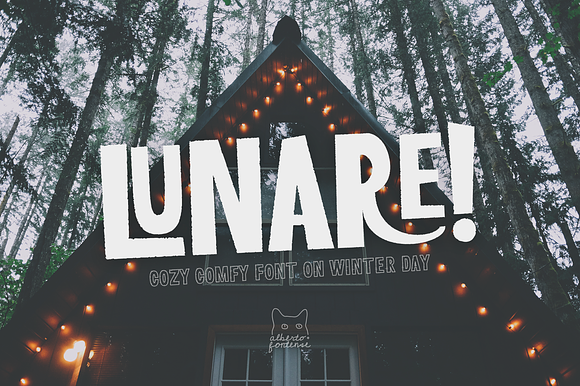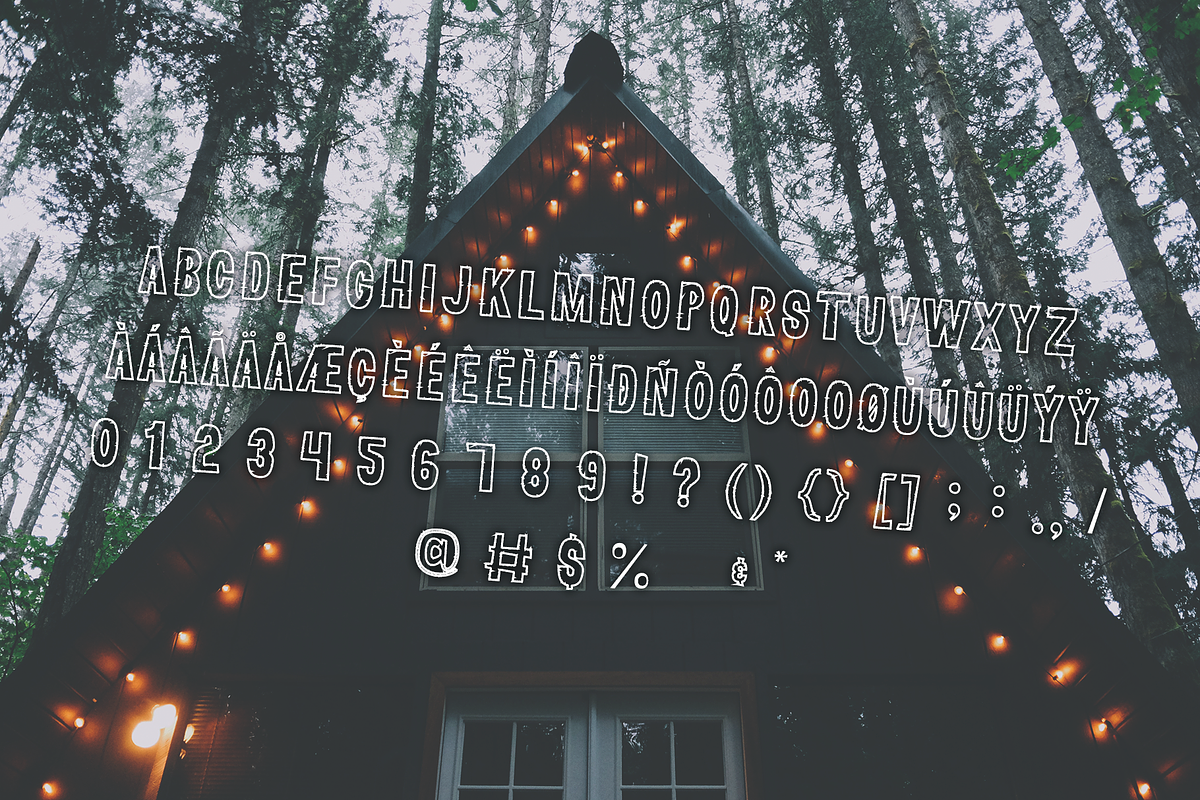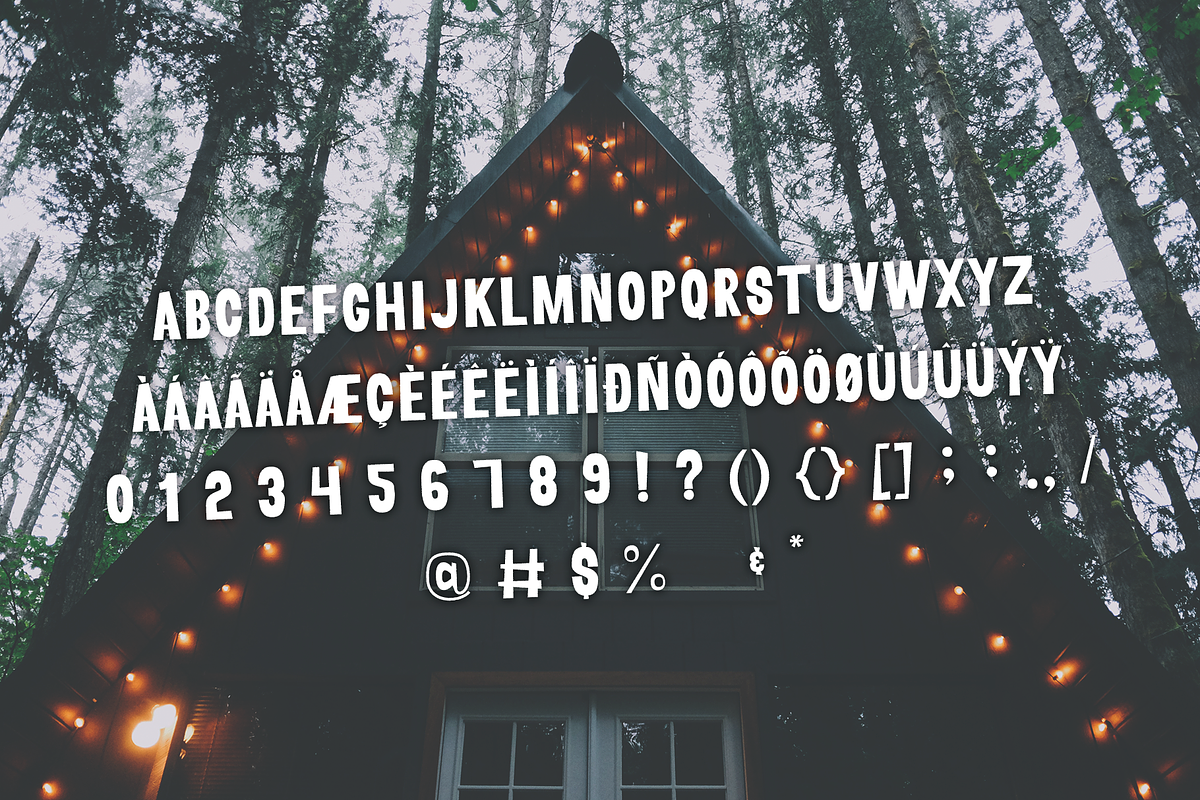
Lunare - Cozy Comfy Font
the cozy comfy font on winter day
- Lunare Regular
- Lunare Outlined
Lunare - Cozy Comfy Font by Alberto Fontense fits naturally into Branding, posters, packaging, typography.